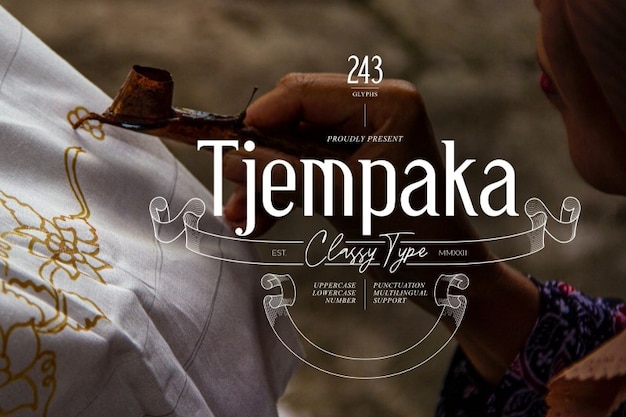
Tjempaka Font
Tjempaka font embodies vintage allure with its simplicity and folklore-inspired charm. Its elegant yet unpretentious design harks back to a bygone era, making it perfect for projects that seek a touch of nostalgia. Whether it's crafting a vintage poster or capturing the essence of classic tales, Tjempaka effortlessly brings timeless appeal to your designs.